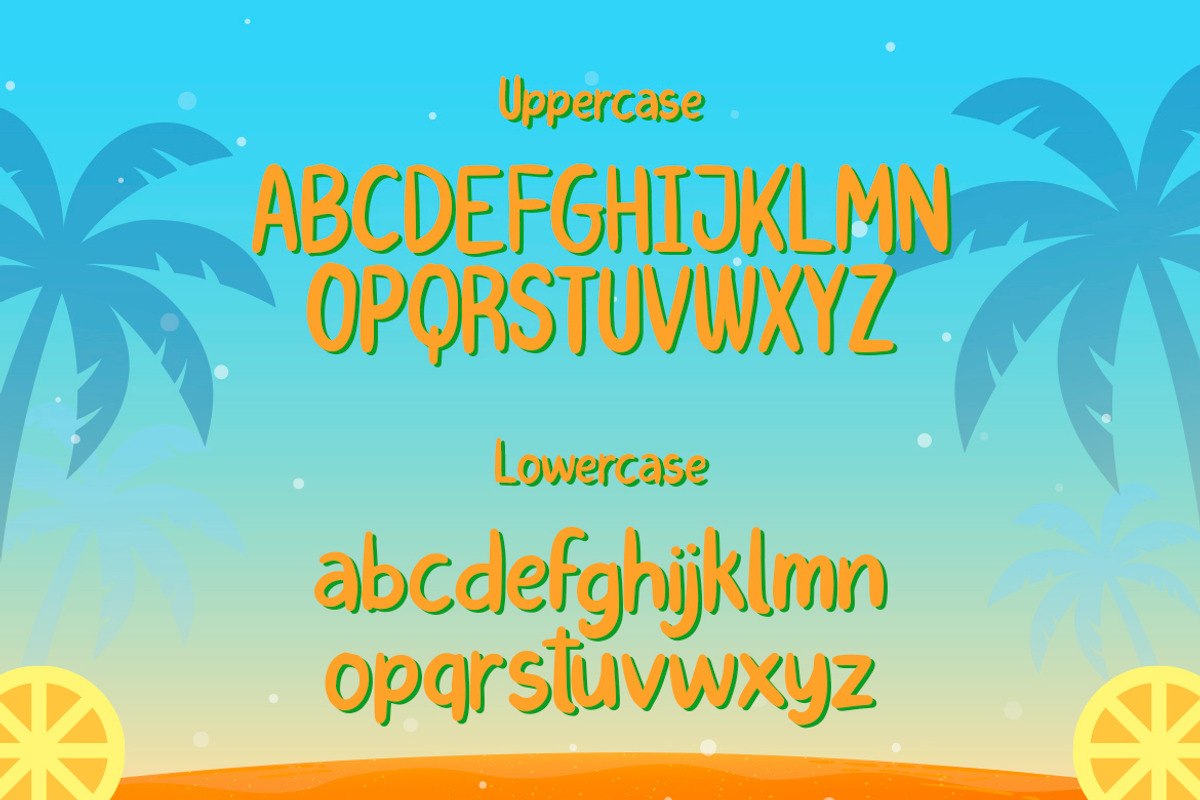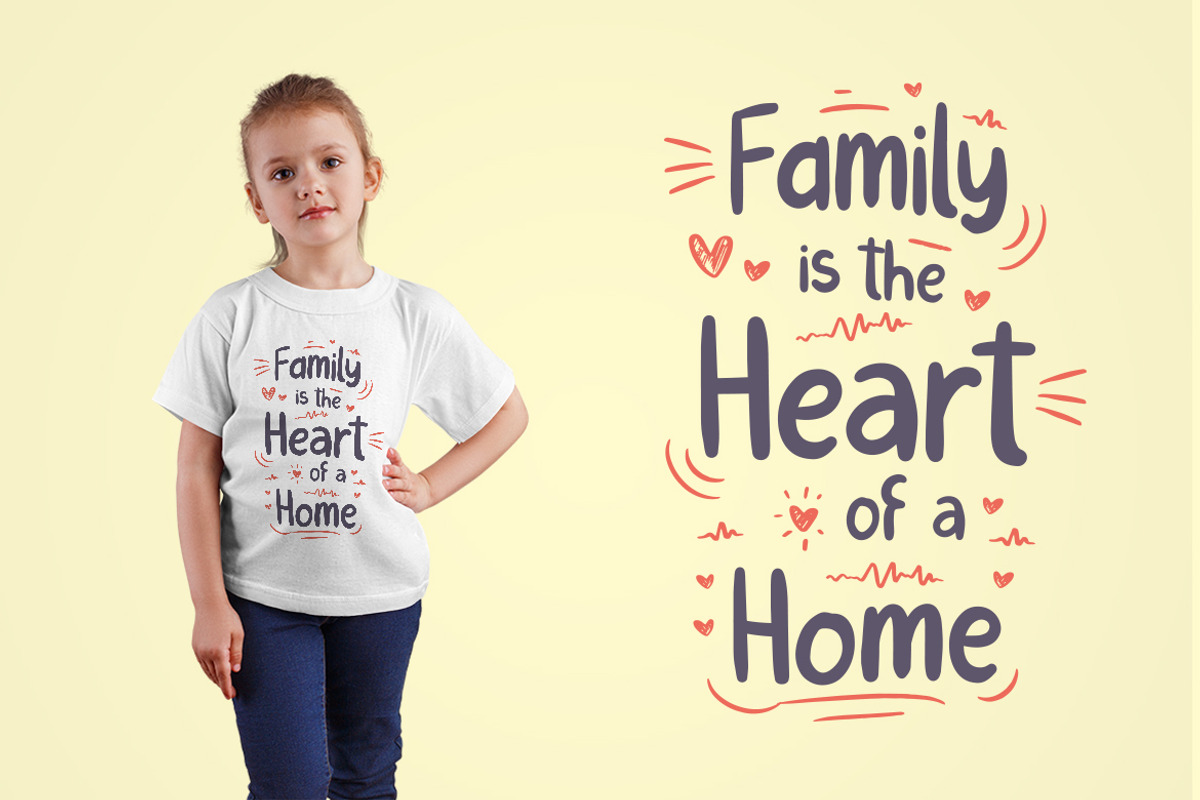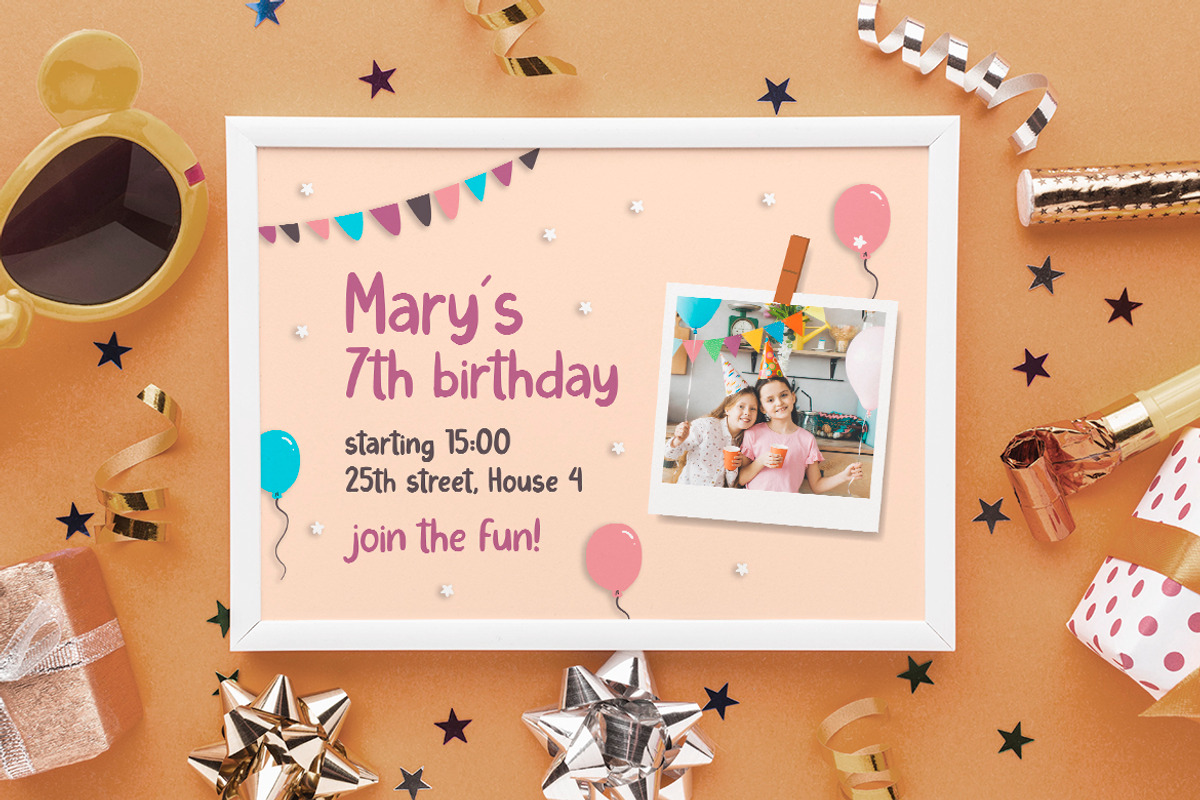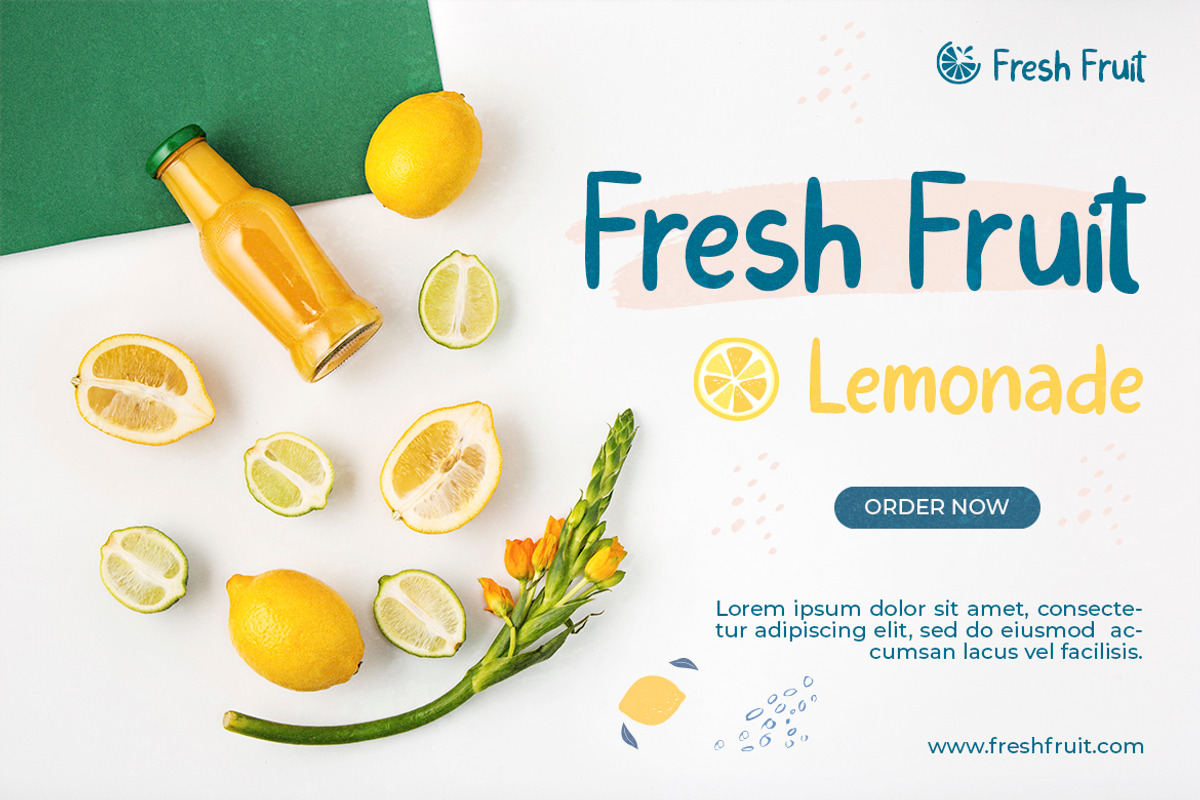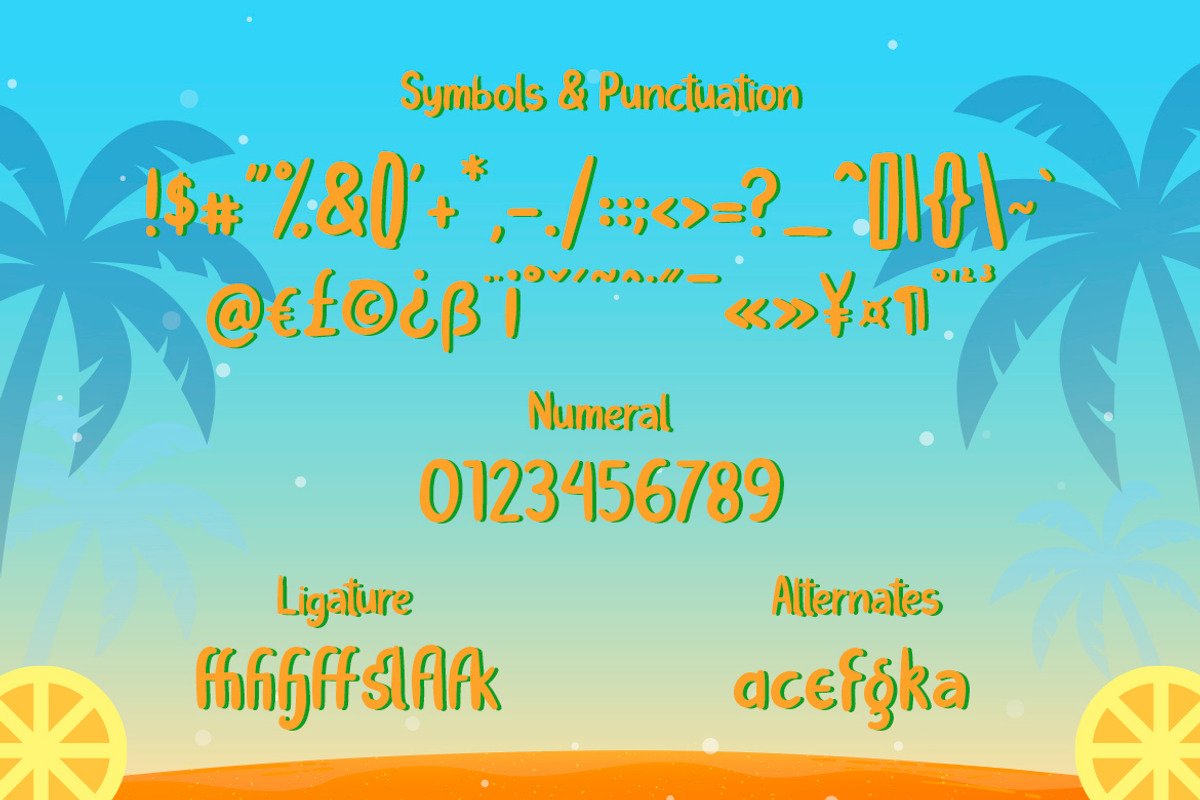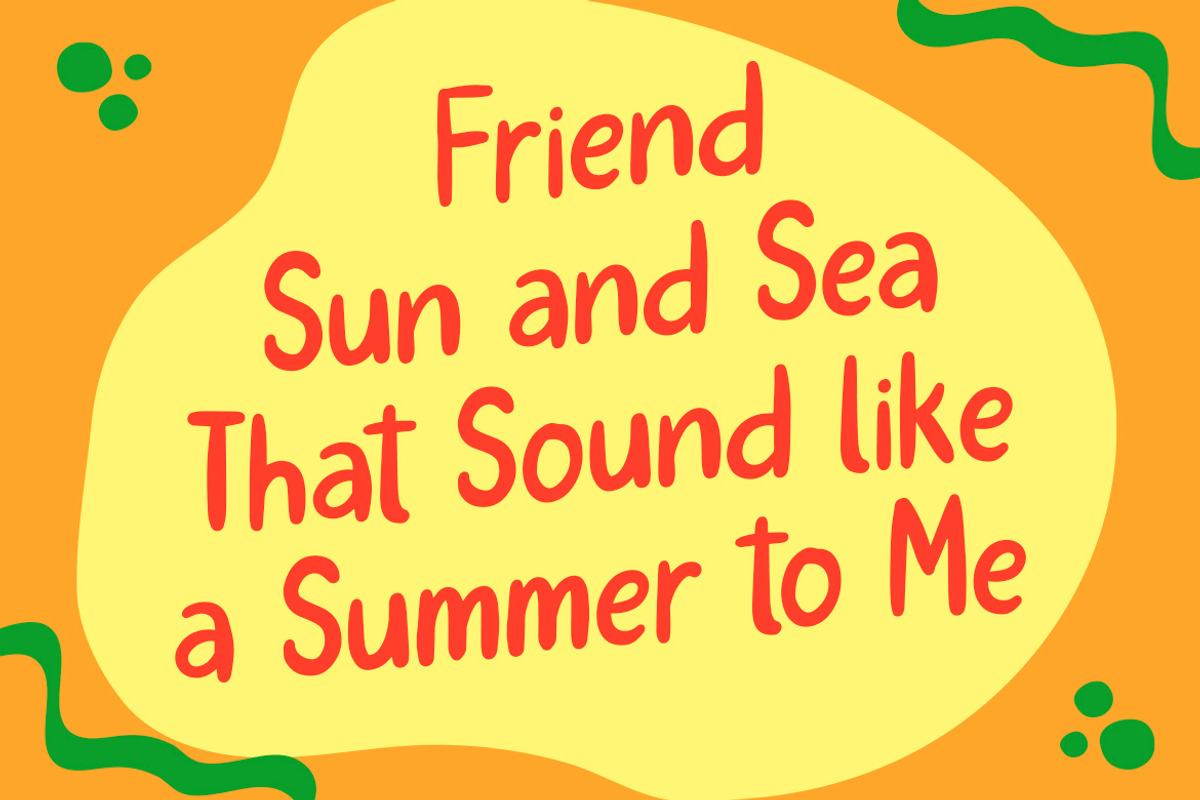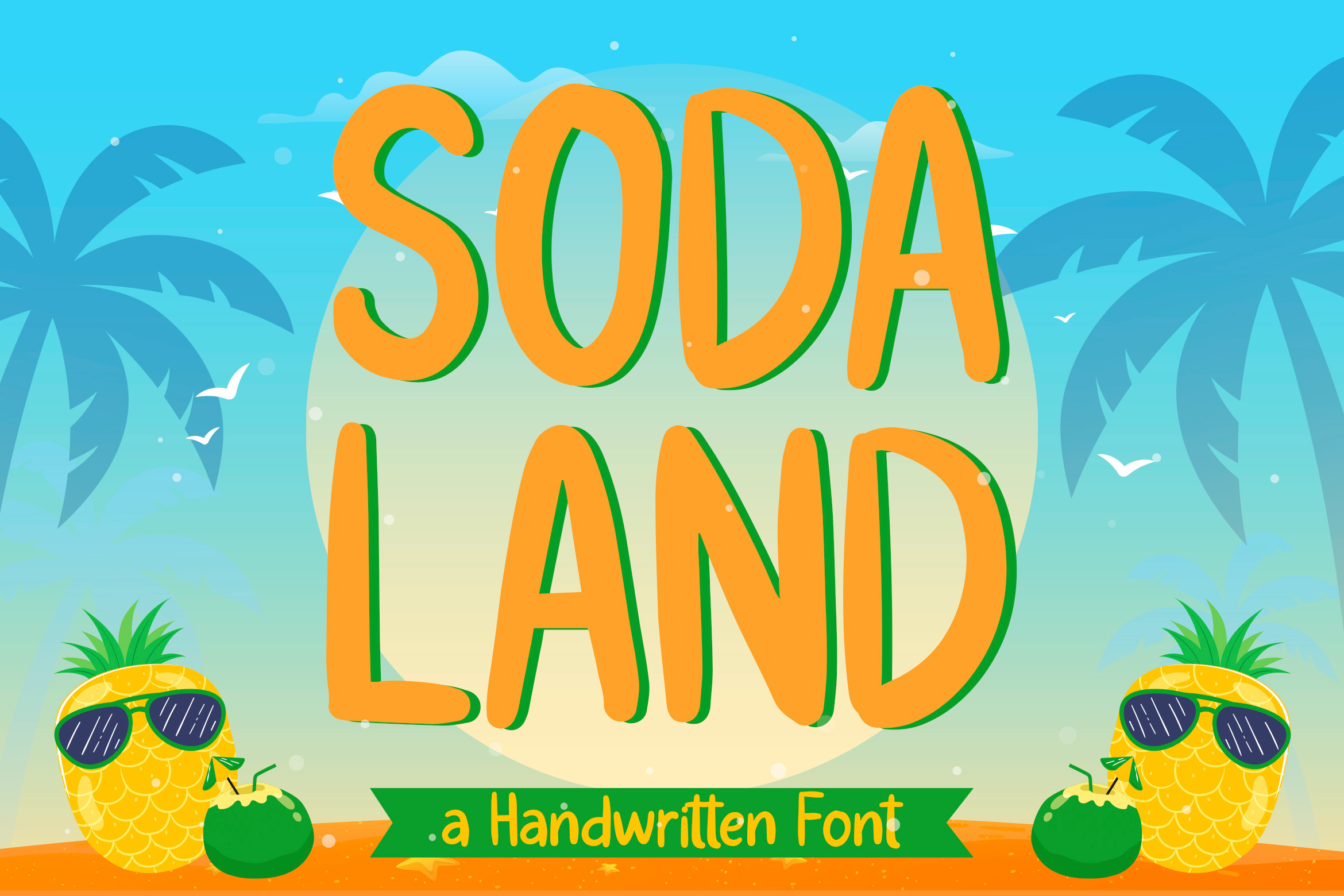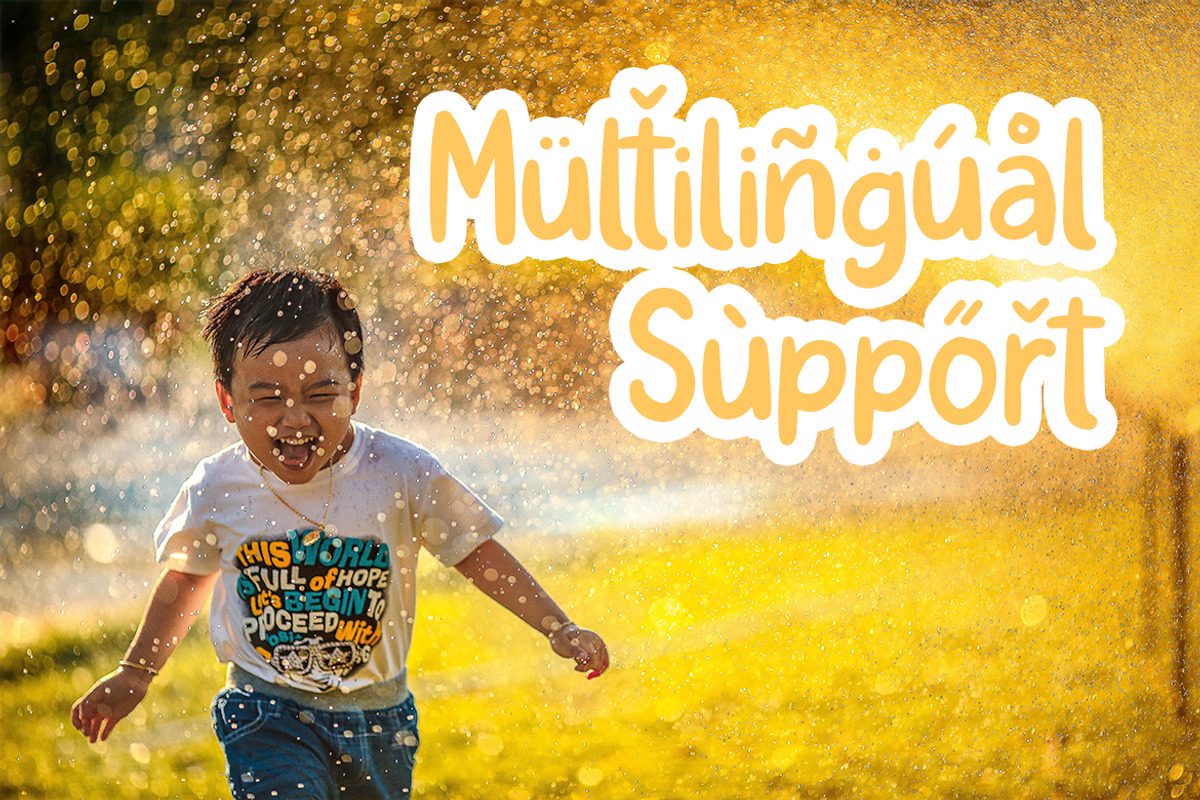
Soda Land - Handwritten Font
Soda Land is a fancy font that will bring playful feel to your designs. It is inspired by Summer theme typographies and it looks casual and natural. Soda Land is perfect for branding purposes such as logo, label, title, headline, product, social media, business card, quotes, and others
- Symbols & Punctuation
- Numeral